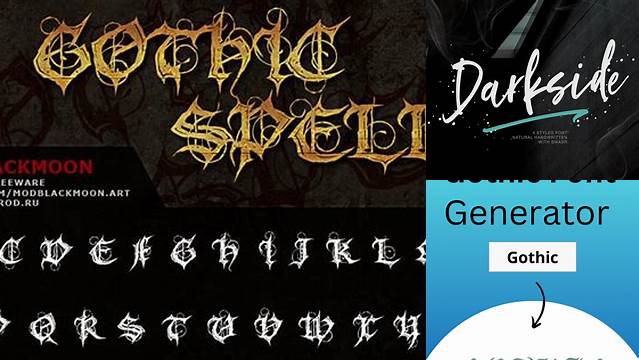
Free Gothic Font Generator: Create Dark & Unique Designs
Are you looking to add a touch of gothic darkness and mystique to your projects? Look no further! A free gothic font generator is your perfect weapon of choice. This powerful tool allows you to create stunning and unique text designs with ease. Whether you're crafting a website, designing posters, or creating social media graphics, gothic fonts can instantly elevate your work and give it a distinctive edge. In this article, we'll delve into the world of gothic fonts, exploring their history, applications, and how you can use a free gothic font generator to unleash your creative potential.
What are Gothic Fonts?
Gothic fonts, also known as blackletter or Old English fonts, are a style of typeface characterized by their dramatic, ornate, and often intimidating appearance. These fonts have a rich history, dating back to the medieval period, and have been used in a wide range of applications, from religious texts to heavy metal album covers. Their distinctive features include: sharp angles, thick strokes, intricate details, and a generally dark and imposing aesthetic. Gothic fonts evoke a sense of history, mystery, and power, making them ideal for projects that aim to convey these qualities. Think about the classic look of old manuscripts, historical documents, or even the titles of horror movies – those often feature gothic fonts. They're not just about looking spooky; they're about making a statement.
The allure of gothic fonts lies in their ability to transport us to another era, to evoke a sense of the ancient and the arcane. The intricate letterforms, with their bold strokes and sharp serifs, demand attention and convey a sense of gravitas. In a world of sleek, modern sans-serif fonts, gothic fonts stand out as a testament to a different time, a time when craftsmanship and artistry were paramount. The history of gothic fonts is intertwined with the history of printing itself. Originating in Europe during the Middle Ages, these fonts were the dominant style for centuries, gracing the pages of illuminated manuscripts, legal documents, and religious texts. Their association with the past lends them an air of authority and tradition, making them a powerful choice for projects that seek to establish a sense of credibility and heritage.
Gothic fonts aren't just about history, though. They've found their way into various contemporary contexts, from the logos of metal bands to the branding of high-end fashion houses. This versatility speaks to the enduring appeal of the gothic aesthetic, its ability to straddle the line between the classic and the contemporary, the serious and the subversive. The use of gothic fonts can instantly imbue a design with a sense of drama and intensity, making it a perfect choice for projects that aim to make a bold statement. Whether you're designing a book cover, a poster, or a website, a gothic font can be the key to creating a visual impact that resonates with your audience. But with so many gothic fonts available, finding the perfect one for your project can feel like a daunting task. That's where a free gothic font generator comes in handy, allowing you to experiment with different styles and variations until you find the perfect fit.
Why Use a Free Gothic Font Generator?
Using a free gothic font generator is a game-changer for anyone looking to incorporate this striking style into their work. These generators offer a convenient and cost-effective way to experiment with a variety of gothic fonts without the need for expensive software or font licenses. Think of it as your personal typography playground, where you can play with different styles, sizes, and effects to create the perfect gothic text for your needs. The benefits are numerous:
- Cost-Effectiveness: This is the most obvious advantage. High-quality fonts can be expensive, especially those with unique and intricate designs like gothic fonts. A free generator eliminates this barrier, allowing you to access a wide range of options without breaking the bank. For hobbyists, students, or small businesses on a tight budget, this can be a lifesaver. Imagine being able to create stunning designs without having to worry about font costs – that's the power of a free generator.
- Variety of Options: Many free gothic font generators boast an extensive library of fonts, each with its unique characteristics. You can explore different styles, from the classic blackletter to more modern and stylized variations. This variety ensures that you'll find the perfect font to match your project's aesthetic and tone. Whether you're looking for something elegant and refined or something dark and edgy, a free generator has you covered.
- Ease of Use: Most free gothic font generators are incredibly user-friendly. You simply type in your desired text, choose a font from the available options, and adjust the size, color, and other settings as needed. This ease of use makes them accessible to users of all skill levels, from seasoned designers to complete beginners. You don't need to be a typography expert to create stunning gothic text – a free generator makes it easy for anyone.
- Customization: Many generators offer customization options, allowing you to tweak the font's appearance to your liking. You can adjust the size, color, spacing, and even add effects like shadows or outlines. This level of customization ensures that your text is perfectly tailored to your project's needs. Think of it as having a personalized font designer at your fingertips, allowing you to create a truly unique and memorable visual impact.
Free gothic font generators aren't just about convenience; they're about empowering you to explore your creative vision without limitations. They democratize the world of typography, making high-quality gothic fonts accessible to everyone. Whether you're designing a logo, a poster, or a social media graphic, a free generator can be an invaluable tool in your arsenal. So, why not take advantage of this amazing resource and start experimenting with gothic fonts today? You might be surprised at the stunning results you can achieve.
Where Can You Use Gothic Fonts?
In conclusion, a free gothic font generator is an invaluable resource for anyone looking to add a touch of drama, history, and mystique to their projects. With their ease of use, variety of options, and cost-effectiveness, these generators make it accessible for everyone to experiment with the captivating world of gothic fonts. From logos and posters to websites and book covers, gothic fonts can elevate your designs and help you create a lasting impression. So, embrace the darkness, explore the possibilities, and unleash your creativity with a free gothic font generator today!